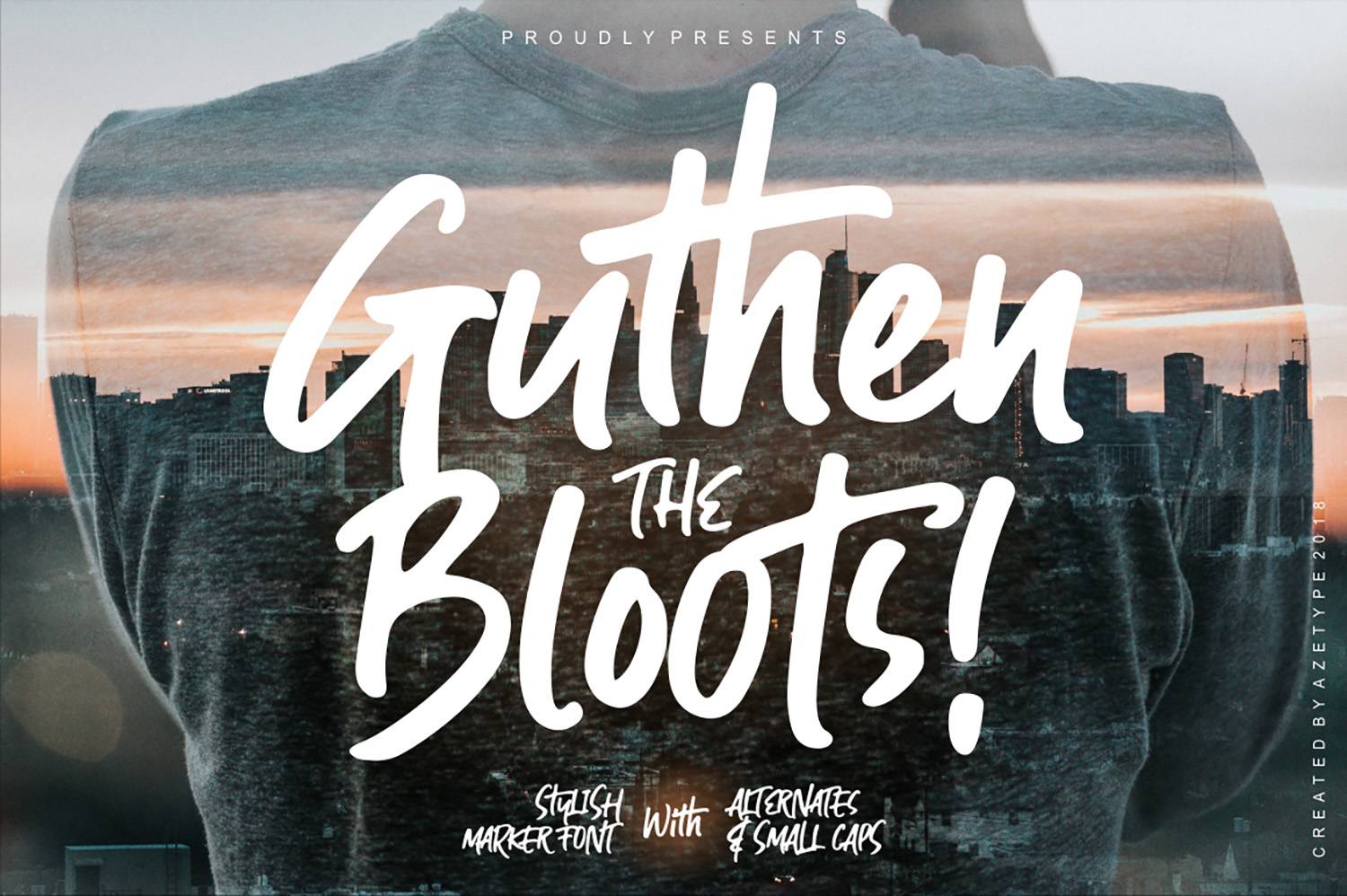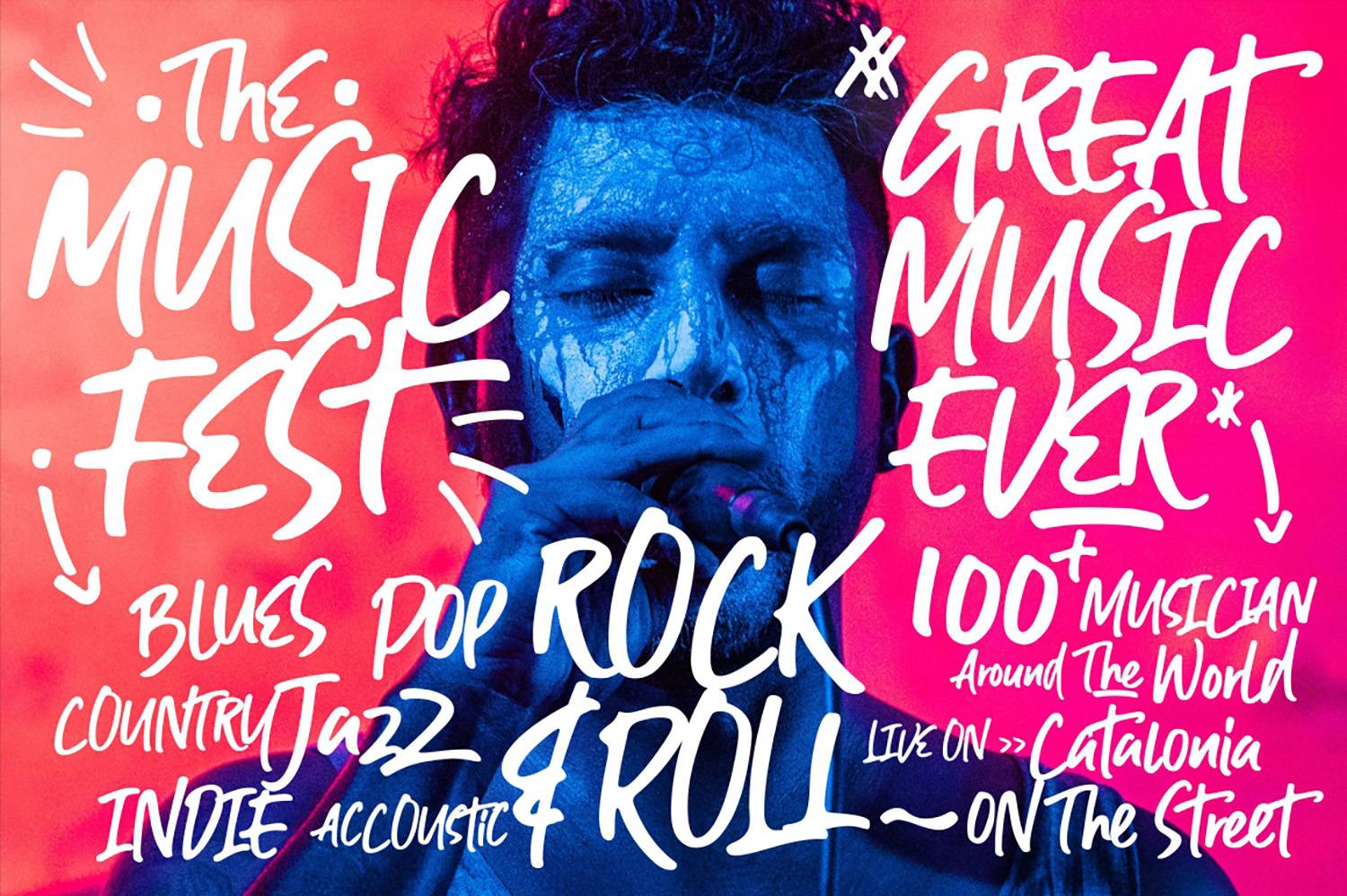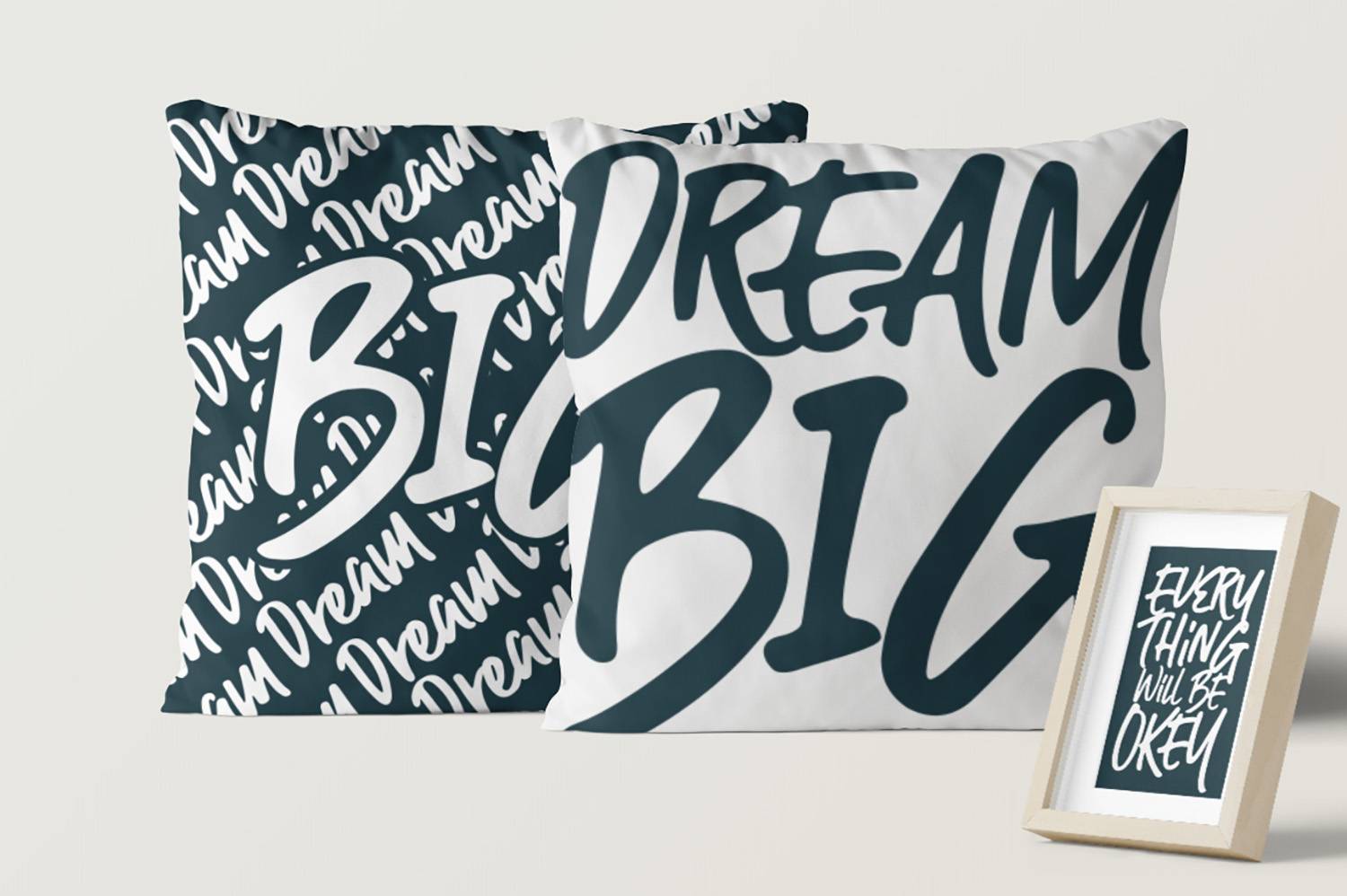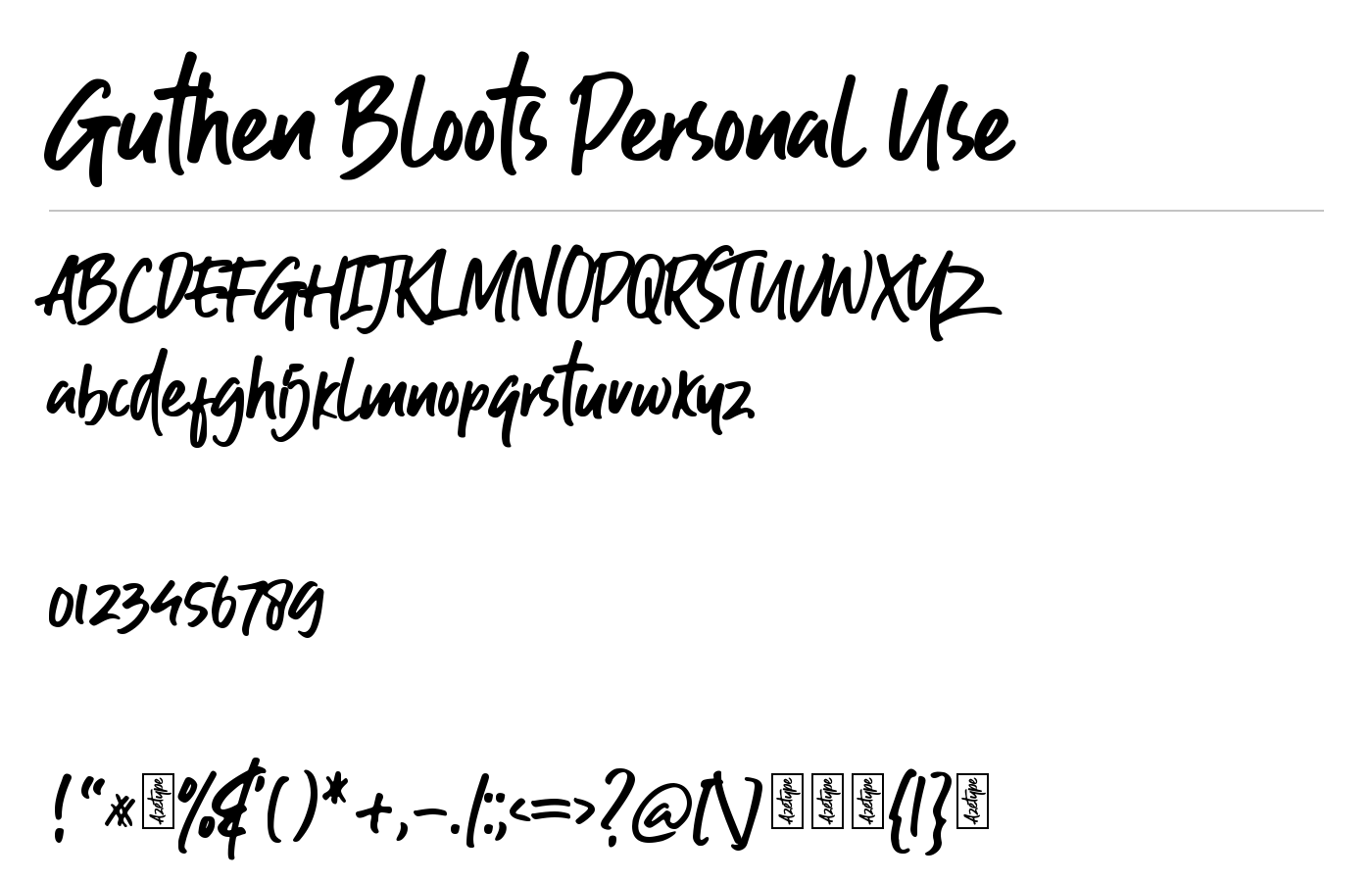
Guthen Bloots is a lively handwritten script font with a bold, casual feel and smooth, flowing strokes that mimic natural brush lettering. Its tall x-height and slightly condensed letterforms make it highly readable while conveying a personal and energetic style, ideal for creative projects, informal branding, and eye-catching headlines. This font works wonderfully where a friendly yet dynamic vibe is desired, such as social media graphics, invitations, and lifestyle product packaging.
Guthen Bloots Font
About Guthen Bloots Font
| Font family | Guthen Bloots Font |
| Designer | Muh. Aswar |